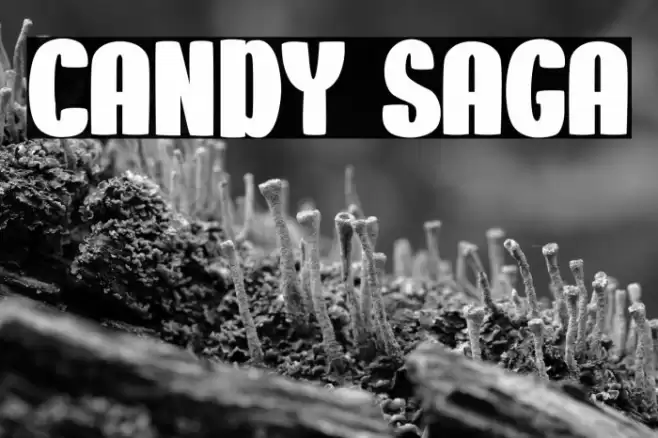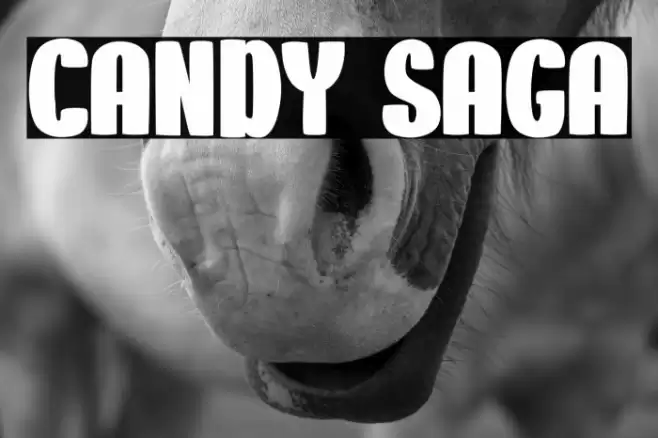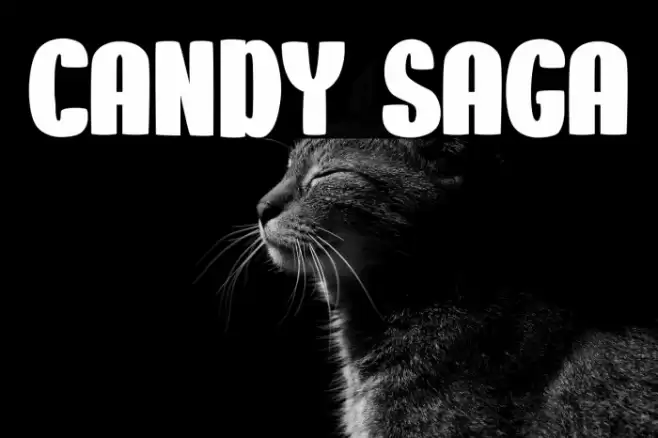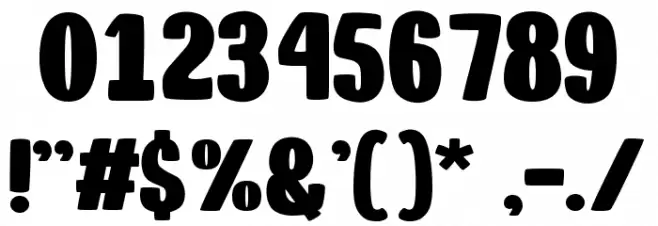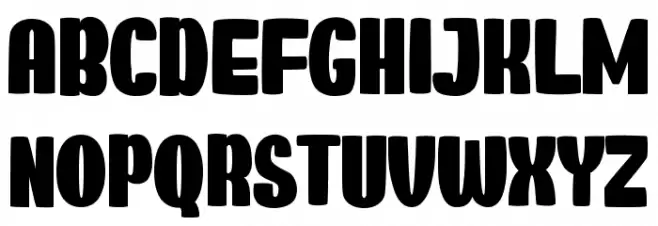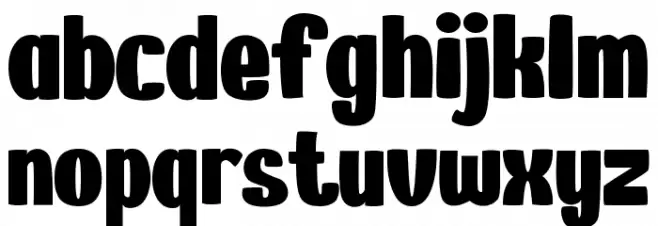
CANDY SAGA Font
CANDY SAGA Description
This playful and bold font features thick, rounded characters that exude a sense of fun and whimsy. The uppercase and lowercase letters are designed with a consistent stroke weight, creating a harmonious and cohesive look. The numbers and special characters maintain the same playful style, making them perfect for eye-catching designs. The font's rounded edges and uniform thickness give it a friendly and approachable appearance, ideal for projects that require a touch of lightheartedness. Its bold presence ensures readability while adding a unique flair to any text.
A playful, bold font with rounded characters and a whimsical style from Uncategorized fonts.
- Proposed Projects: Ideal for children's books, playful branding, party invitations, and game design.
- Overall Style: Playful, Whimsical